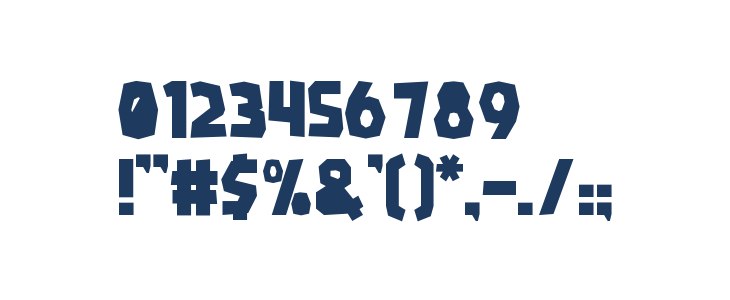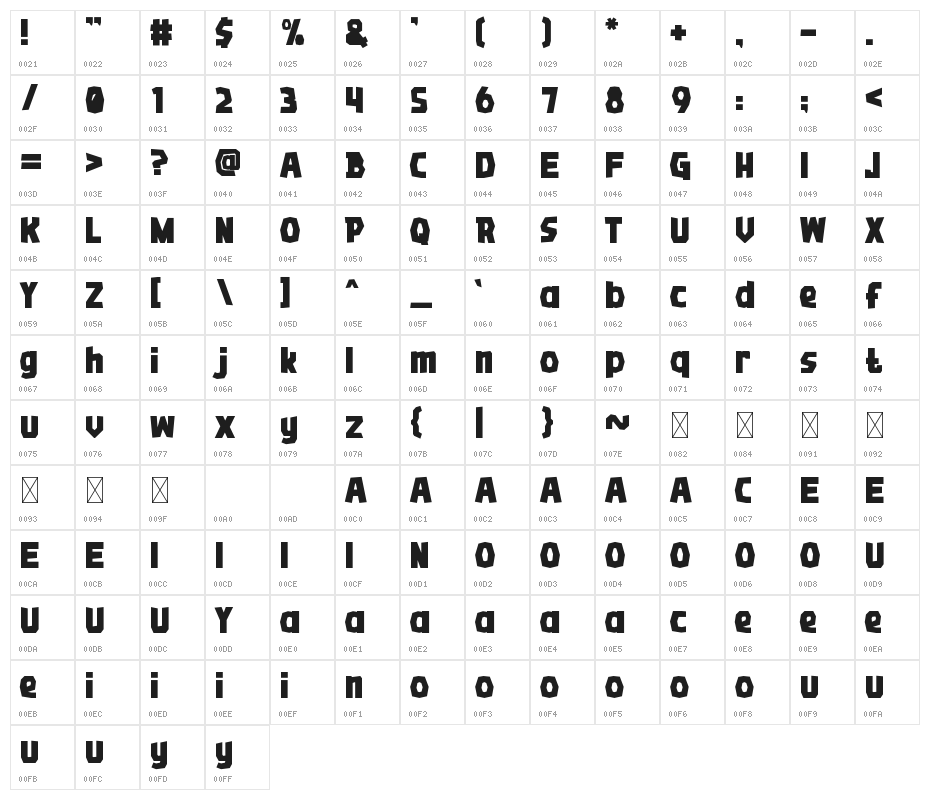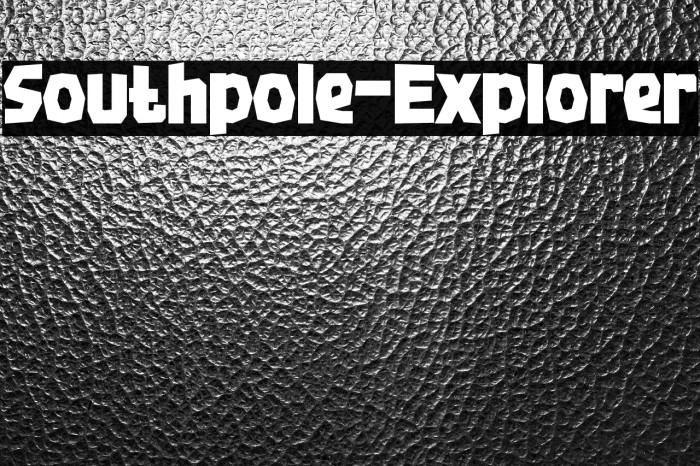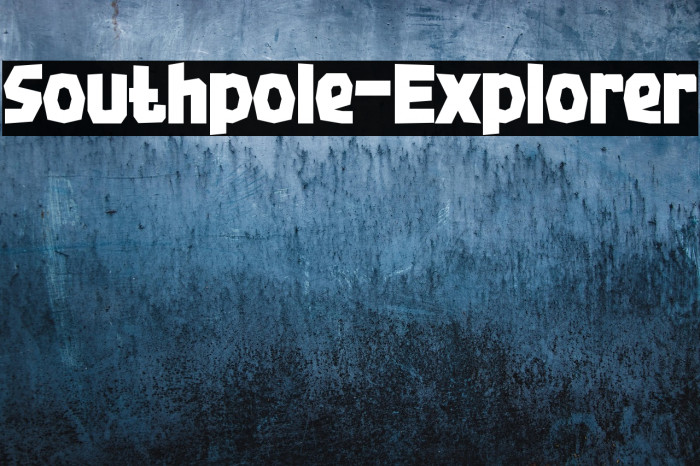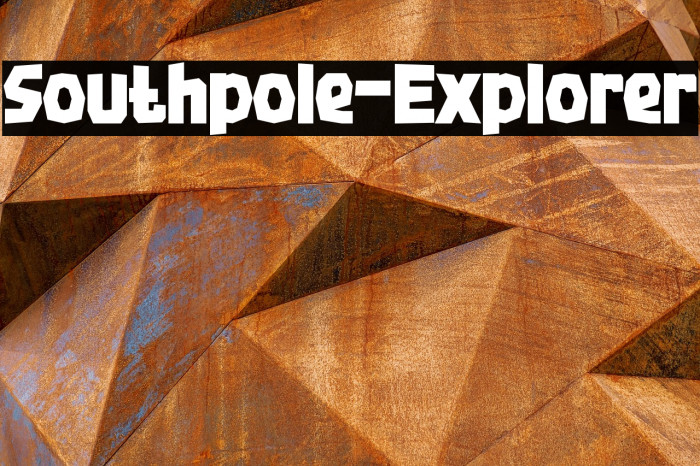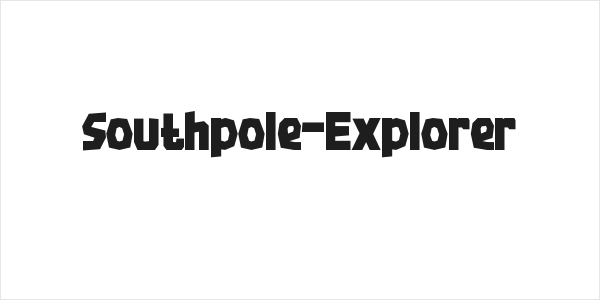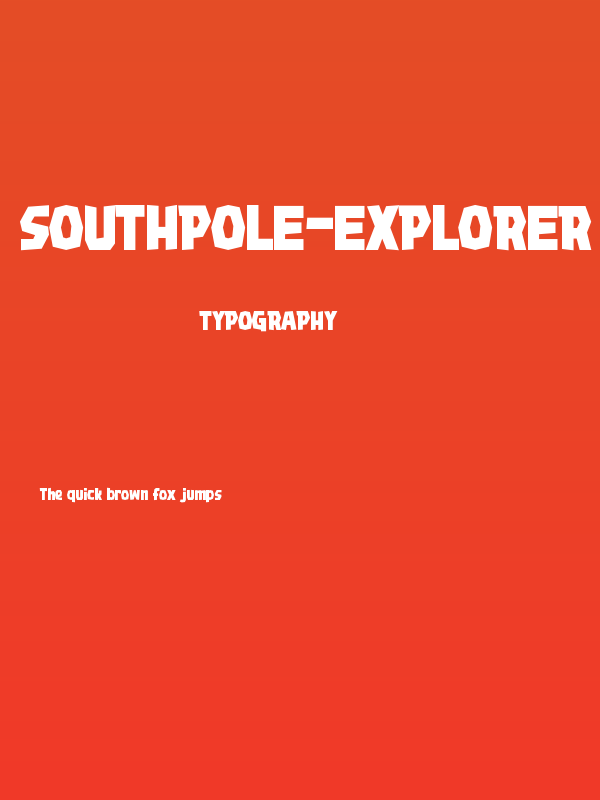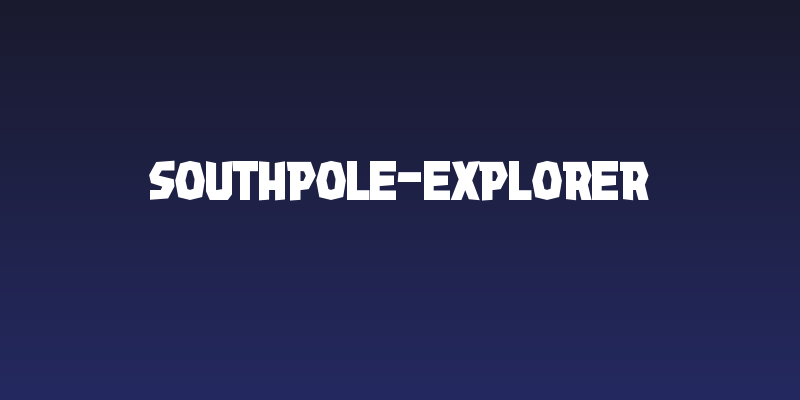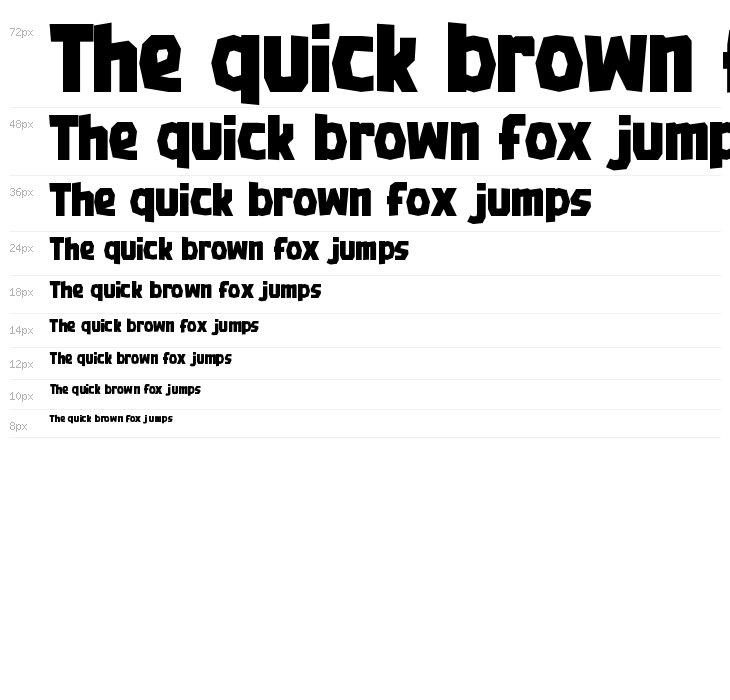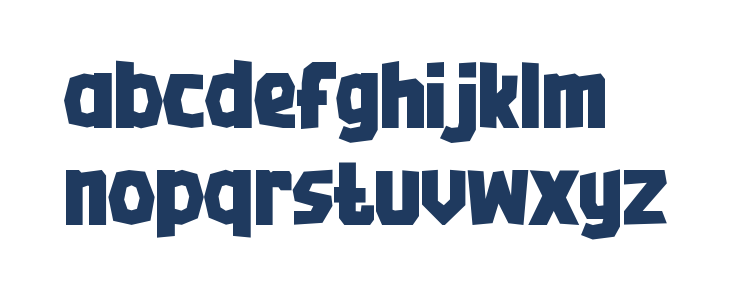
Southpole-Explorer Font
Southpole-Explorer Description
This font features a bold and angular design, characterized by its sharp edges and geometric shapes. The uppercase and lowercase letters maintain a consistent blocky style, giving it a strong and impactful appearance. The numbers and special characters follow the same design principles, ensuring uniformity across all glyphs. The font's unique style makes it stand out, with a rugged and adventurous feel that is both modern and distinctive.
| Proposed Projects | Ideal for projects that require a strong visual impact, such as posters, logos, and branding for outdoor or adventure-themed products. |